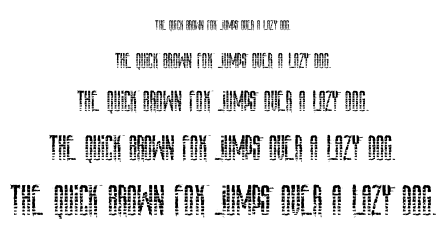
Home » Fancy » Distorted » Amaz Stalker Distorted Amaz Stalker Amazingmax January 26, 2013 7 Views 0 SaveSavedRemoved 0 Amaz Stalker Font AmazS.T.A.L.K.E.R.Italic.ttf AmazS.T.A.L.K.E.R.v.3.0.ttf Freeware - 2 font files Download 771 downloads Character Mapspecimen sheetwaterfallAmazS.T.A.L.K.E.R.v.3.0.ttf Based on S.T.A.L.K.E.R. video game logo.